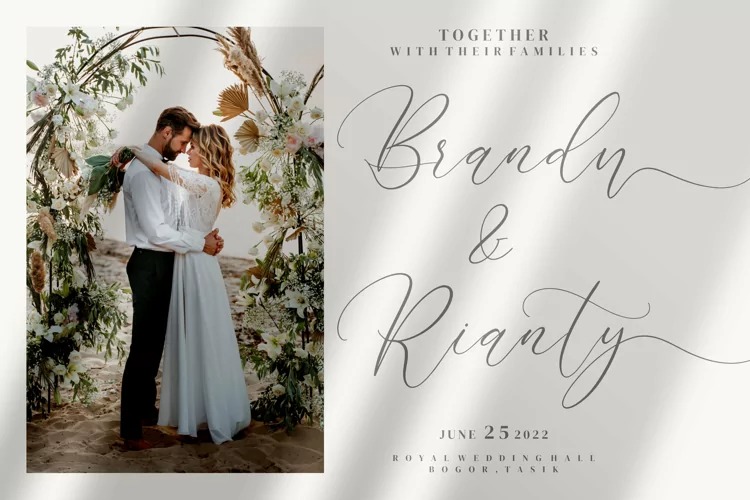
Almyrada Calligraphy Font
It’s a modern and elegant calligraphy script typeface that comes with beautiful character changes, a kind of classic decorative copper script with a modern twist, designed with great detail to bring out stylish elegance. Suitable for any projects such as: logos, branding projects, homeware designs, product packaging, mugs, quotes, posters, shopping bags, t-shirts, book covers, name card, invitation cards, greeting cards, label, photography, watermark, special events, and all your other luxury projects that need a premium signature taste.